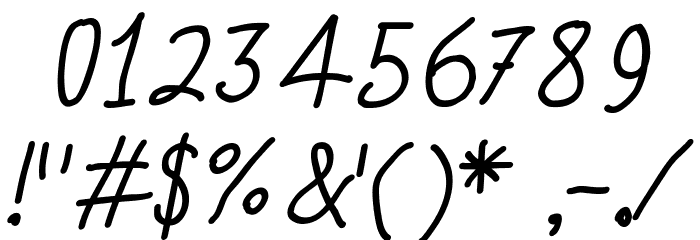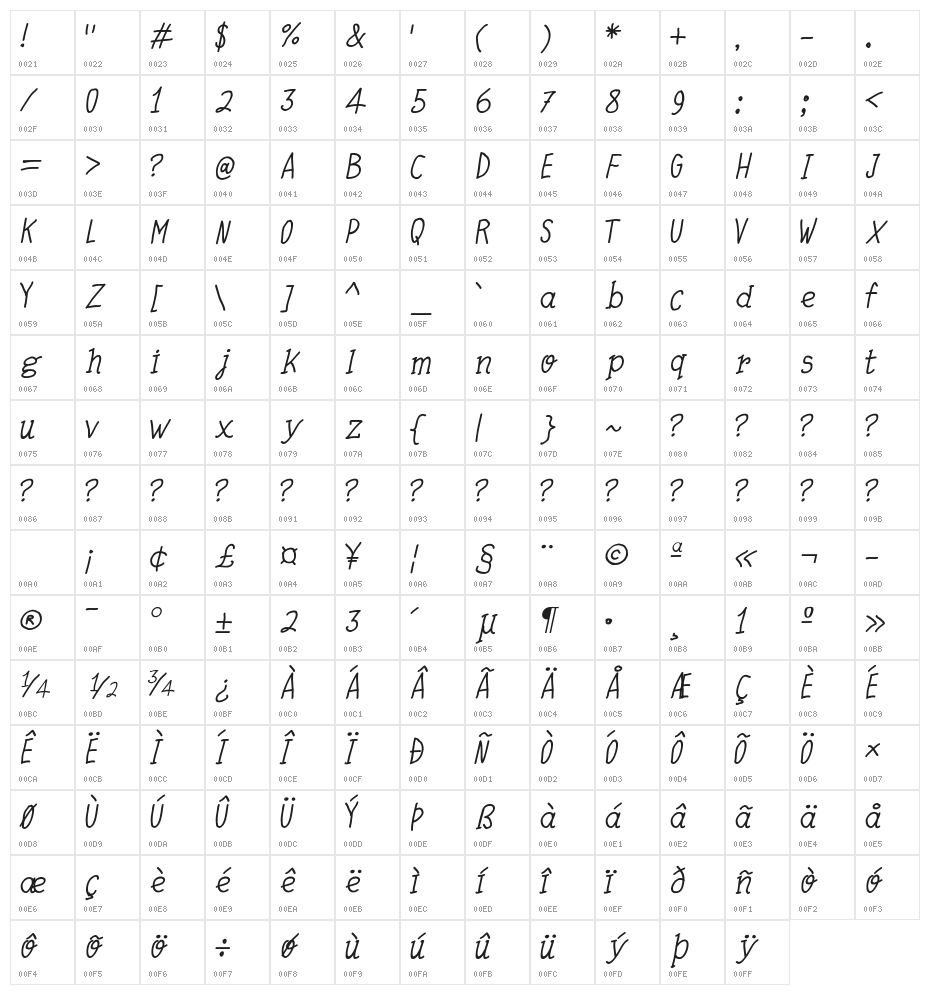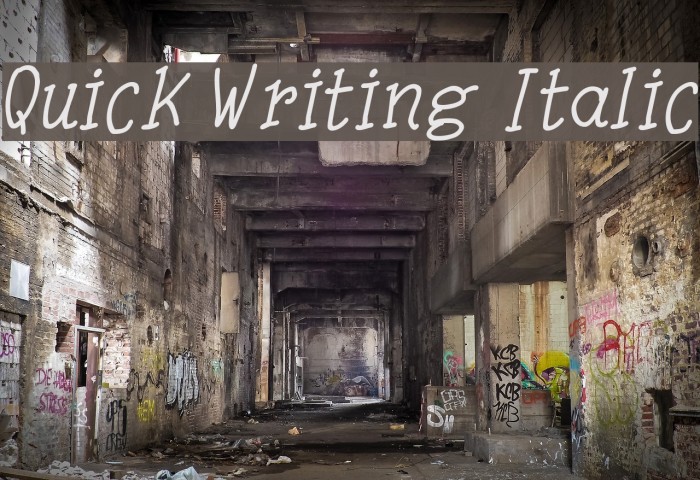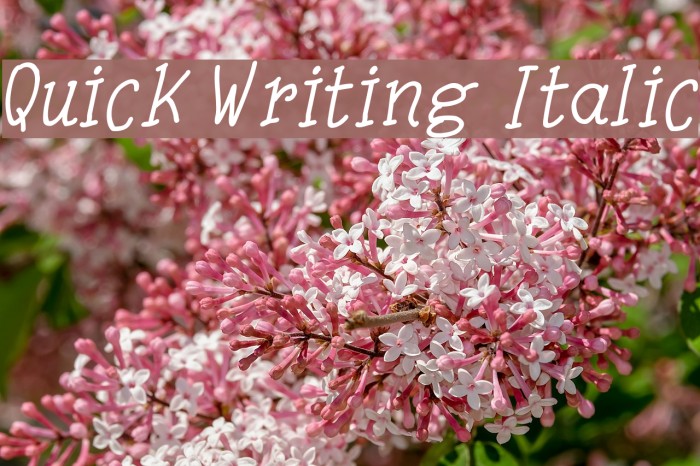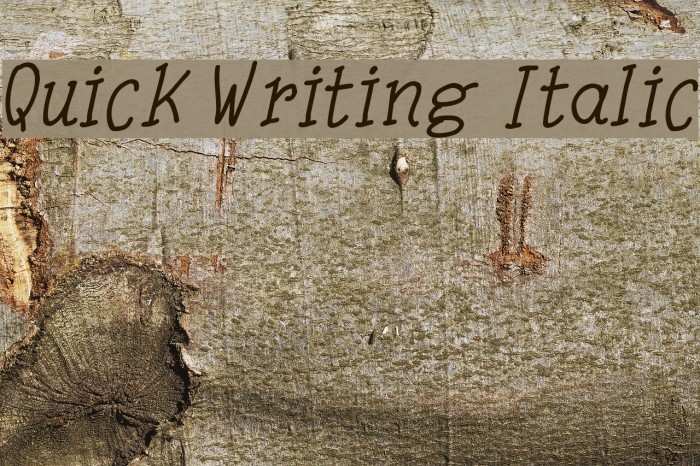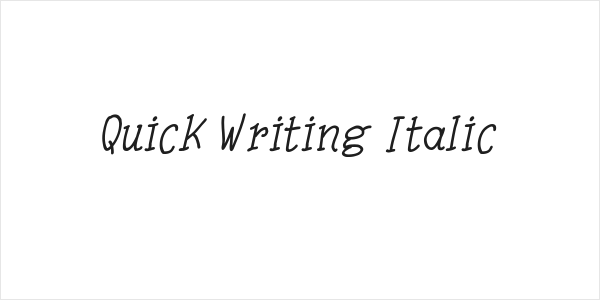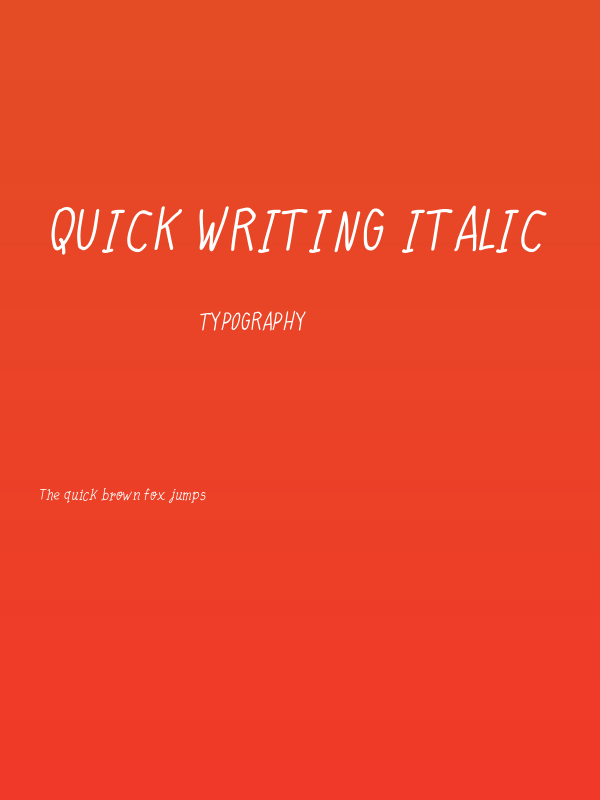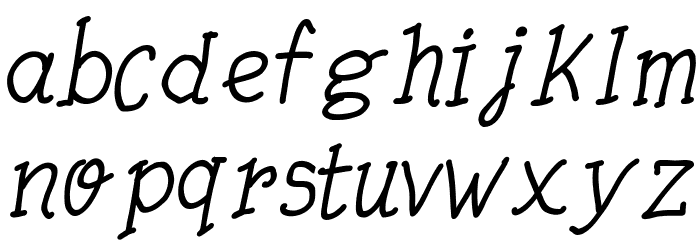
Quick Writing Italic Font
Quick Writing Italic Description
This font exhibits a casual, handwritten style with a slight slant, giving it an informal and approachable appearance. The characters are crafted with a smooth, flowing motion that mimics natural handwriting. Uppercase letters maintain a consistent height, while lowercase letters vary, adding to the organic feel. The numerals are clear and legible, maintaining the same handwritten aesthetic. Special characters are well-integrated, ensuring versatility in various contexts. The overall design is clean yet dynamic, making it suitable for projects that require a personal touch.
| Use Case | Invitations, Personal notes, Greeting cards |
| Proposed Projects | Ideal for personal notes, invitations, greeting cards, and any project requiring a warm, personal touch. |